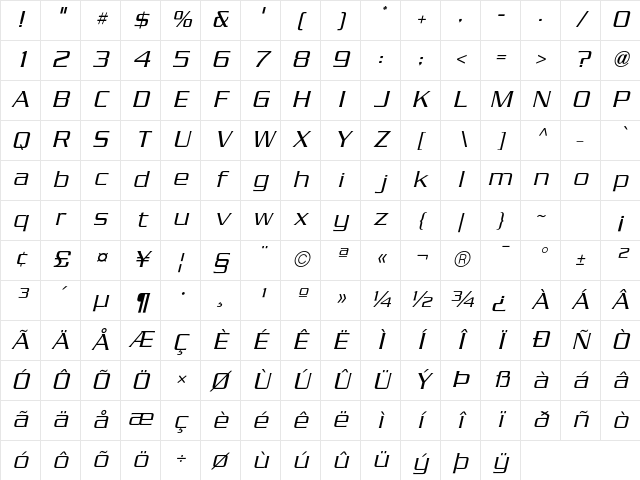
Complete SerpentineICG LightOblique glyph index. Displaying only characters natively supported by SerpentineICG LightOblique font.
SerpentineICG is a composed and adaptable typeface that performs quietly and consistently across a wide range of design contexts. The slanted form adds forward momentum and visual energy. Its slender proportions lend an understated elegance to any composition.